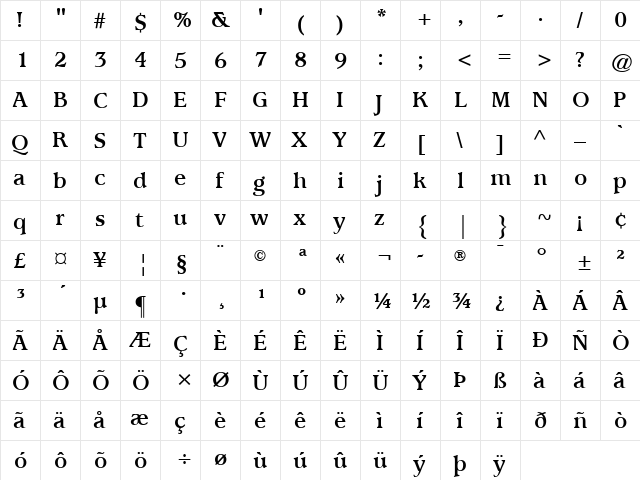
Usherwood LT Book Bold
Design Context for Usherwood LT Book Typeface
Usherwood LT Book taps into classic Western woodtype traditions — bold, characterful, and impossible to ignore. The heavy weight commands attention and anchors typographic hierarchies.
Perfect for barbecue restaurants, country music branding, vintage poster design, and rustic packaging.
Font Pairing: Combine Usherwood LT Book with a simple slab or neutral sans — period-accurate companions reinforce the vintage feel without competing for attention.
Pro Tip: Pair Usherwood LT Book with aged textures or distressed backgrounds to amplify its vintage personality.